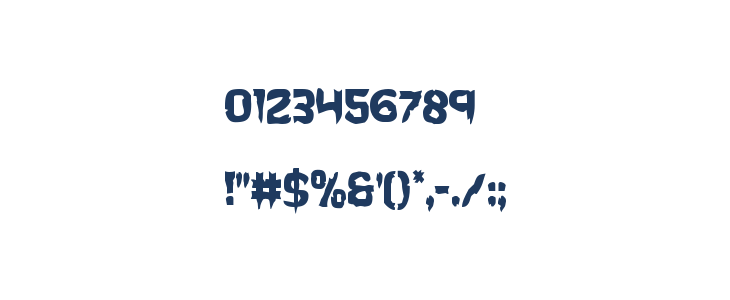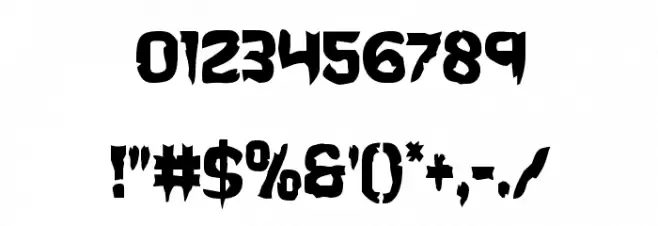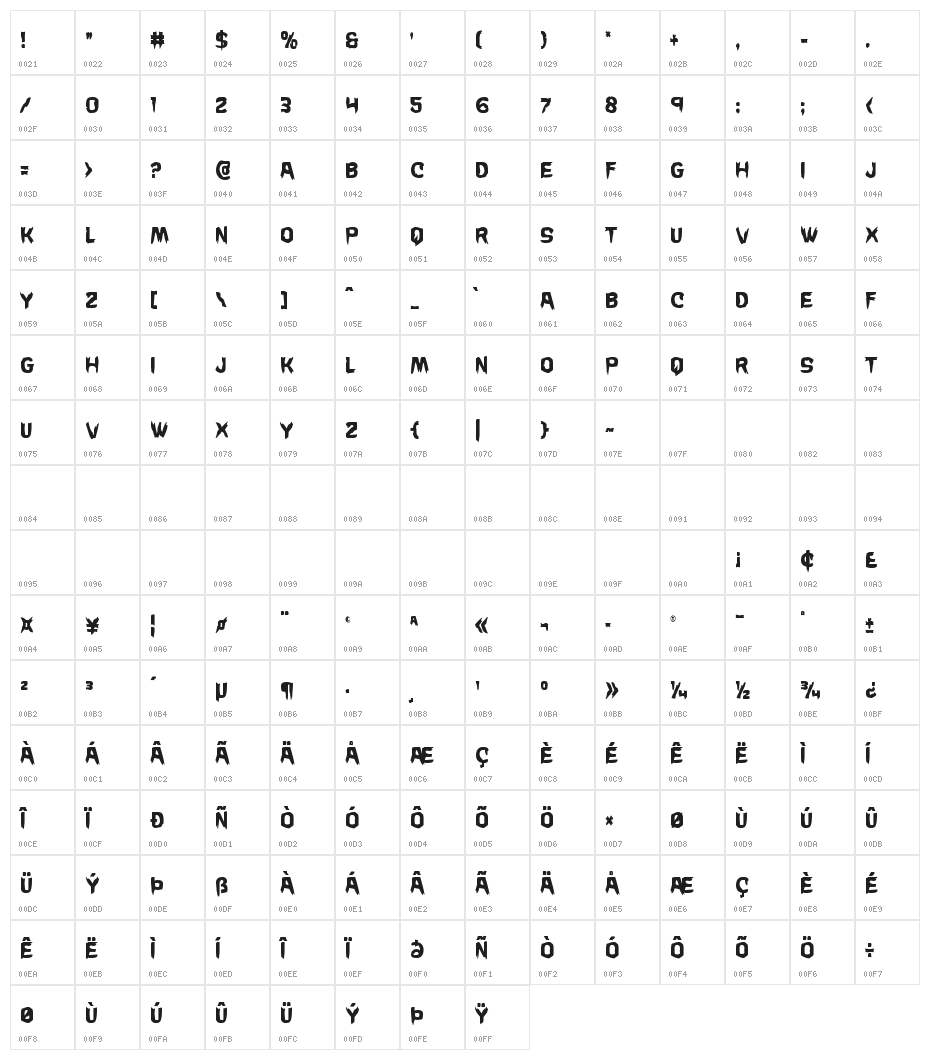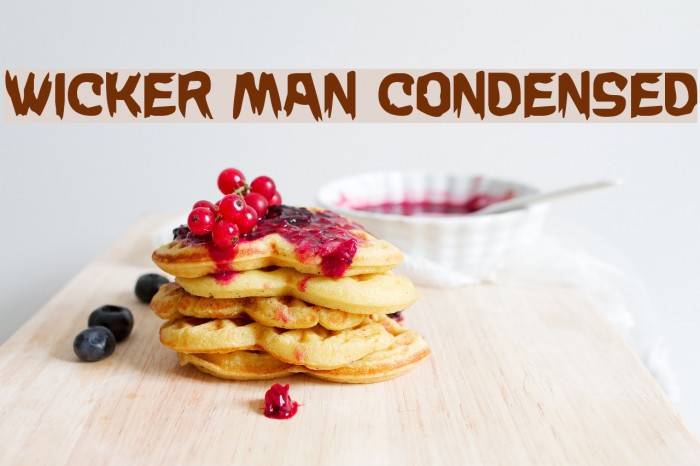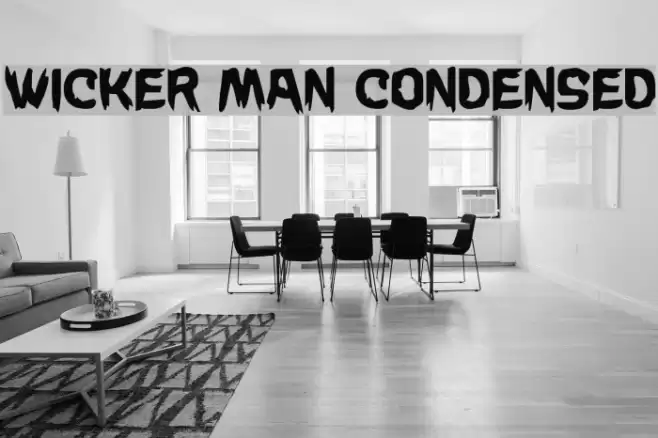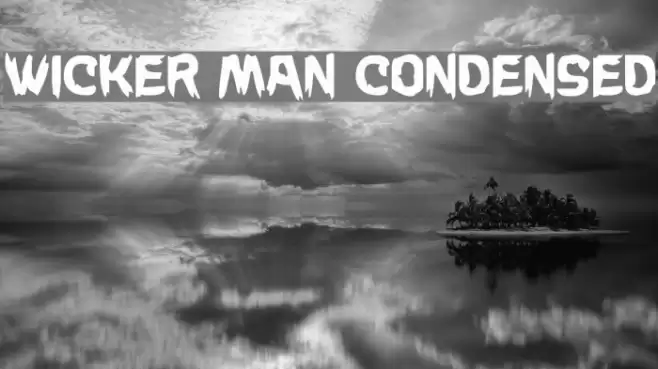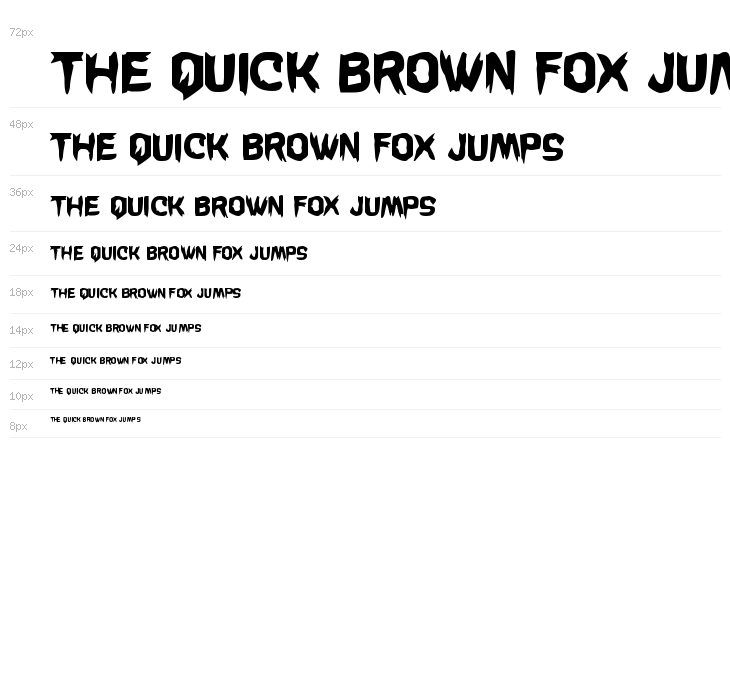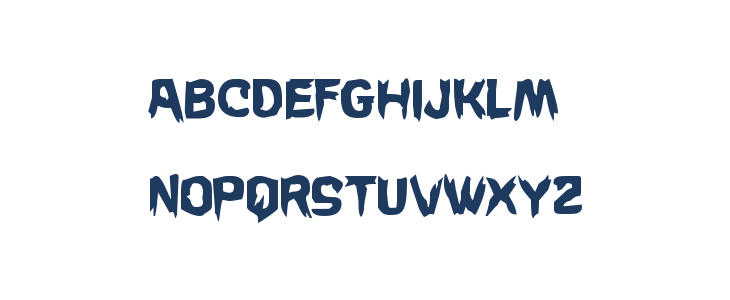
Wicker Man Condensed Font
Wicker Man Condensed Description
This font features a bold and dramatic style with sharp, jagged edges that give it a rugged and edgy appearance. The characters are condensed, enhancing the intensity and impact of the text. The uppercase and lowercase letters maintain a consistent design, with angular cuts and pointed serifs that add to its distinctive look. The numbers and special characters follow the same design principles, ensuring a cohesive appearance across all glyphs. This font is ideal for projects that require a strong and attention-grabbing aesthetic, such as posters, album covers, or branding for edgy or alternative products.
| Overall Style | Edgy, Dramatic |
| Proposed Projects | Ideal for posters, album covers, edgy branding, and alternative product designs. |